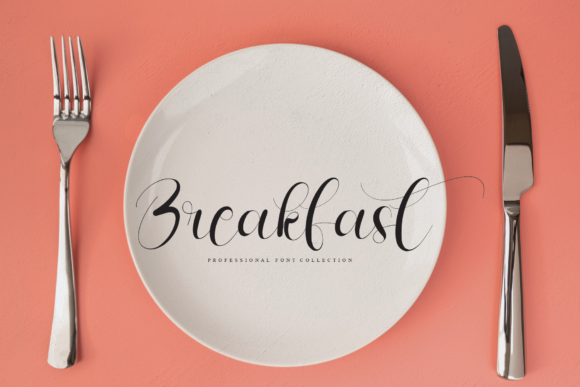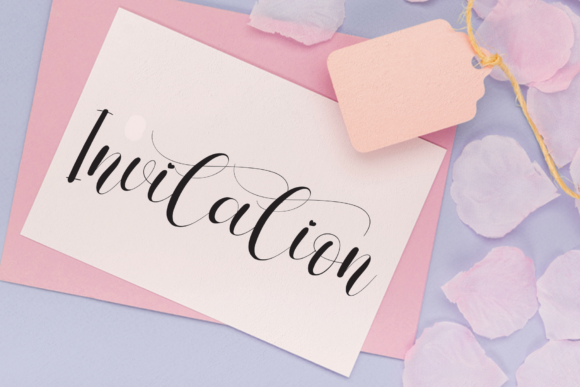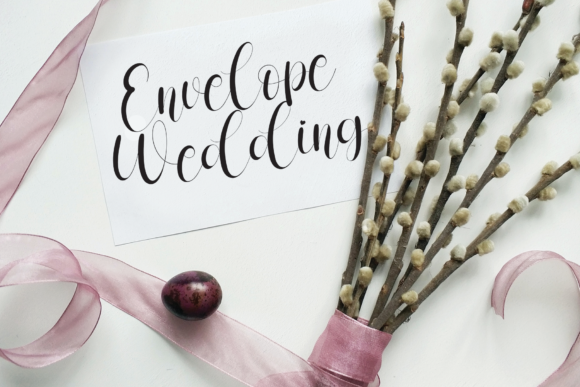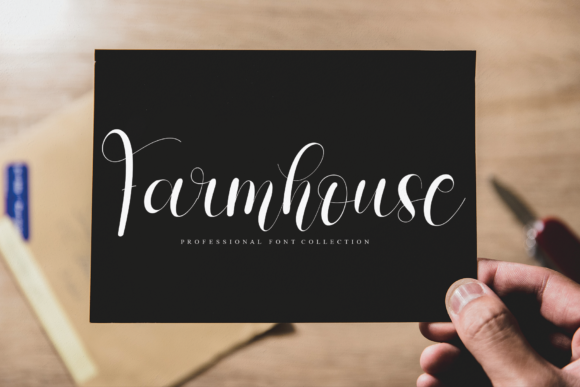
Script Fonts Umbrella Rainbow Font 0 149 FacebookTwitterPinterestWhatsApp 1 of 5 Umbrella Rainbow Font Poster 2... Umbrella Rainbow Font Poster 3... Umbrella Rainbow Font Poster 4... Umbrella Rainbow Font Poster 5... About Umbrella Rainbow Font Umbrella rainbow is an elegant and cursive script font. It will beautifully complement any of your exquisite projects that need to stand out! DOWNLOAD NOW